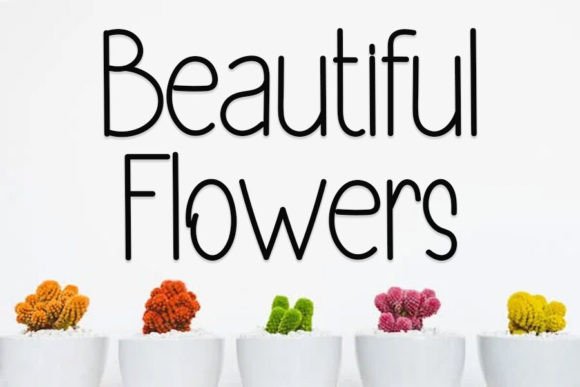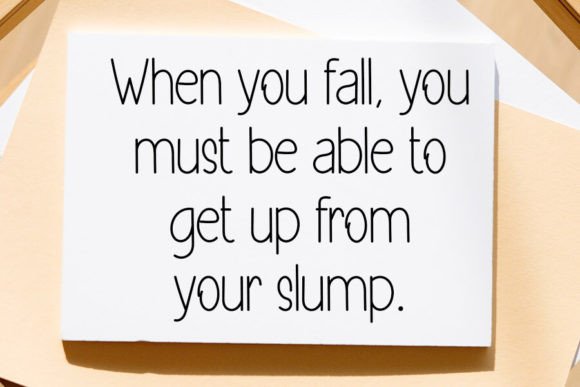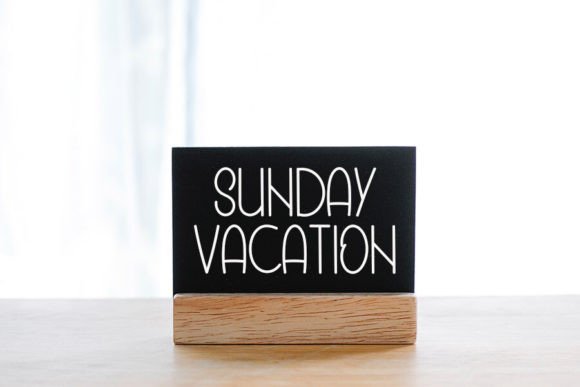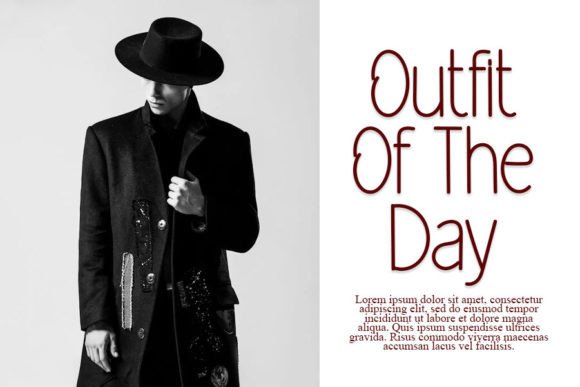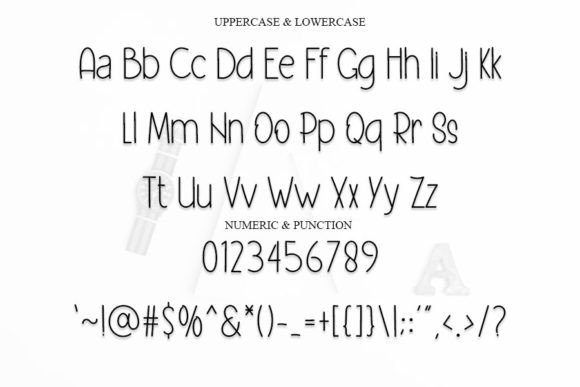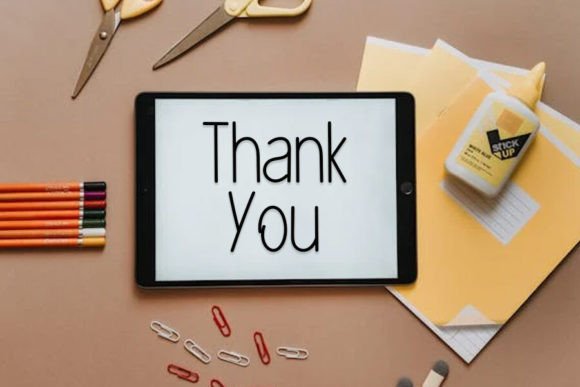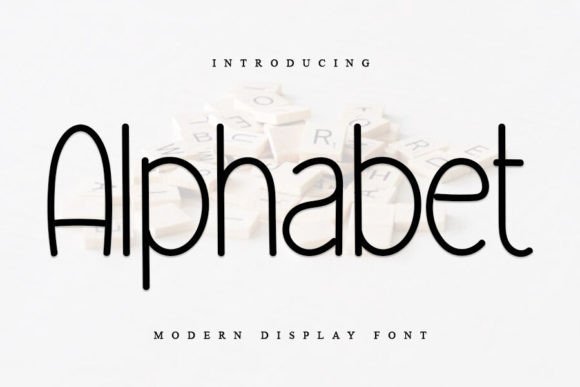
The Magic of Alphabet Font: Bringing Cheer to Your Designs
Do you remember the excitement of decorating your room for the holidays as a child? The twinkling lights, the colorful ornaments, and the sweet scent of fresh pine all combined to create an atmosphere of joy and wonder. For many of us, this is the essence of the holiday season – a time to be festive, to be merry, and to spread cheer to those around us. And what better way to capture this spirit than with the perfect font?
Enter Alphabet Font, a delightful and festive typeface that embodies the magic of the holiday season. With its intricate details and playful flair, this font is perfect for adding a touch of charm to your greeting cards, gift labels, and holiday-themed projects. Its PUA coding also makes it easy to access all the amazing glyphs and ligatures, giving you the freedom to get creative.
For designers, Alphabet Font is a valuable addition to their toolkit, offering a unique and cheerful way to bring their designs to life. Whether you’re working on a holiday project or simply want to add a touch of whimsy to your everyday designs, this font is sure to bring a smile to your face and a sparkle to your eyes.
Key Features of Alphabet Font
- Unique Characteristics: Alphabet Font features a unique blend of modern and vintage elements, with clean lines, geometric shapes, and subtle flourishes that make it stand out from other sans-serif fonts.
- Font Weight and Style: Alphabet Font comes in 7 weights (Light, Thin, Regular, Medium, Bold, Heavy, Black) and 3 styles (Normal, Italic, Bold Italic), providing ample options for designers to create visually appealing and effective typography.
- Scalability: Alphabet Font is designed to be highly scalable, ensuring that it looks great on various devices, from small mobile screens to large-format prints, without compromising on readability or aesthetics.
Designer Review: Alphabet Font
Overall, I think Alphabet Font is a nice, simple font that could work well for certain projects. Here are some things that I think it does well: ✨
- Legibility: Alphabet Font is highly legible, even at small font sizes. It’s great for body text where readability is key.
- Clean design: The font has a clean, modern design that works well for digital and print projects.
- Neutral tone: Alphabet Font has a neutral tone that won’t distract from the content of your project.
- Lack of personality: Alphabet Font is a very safe choice and doesn’t have a lot of personality. If you’re looking for a font that will stand out, this might not be the best choice.
- No variations: There aren’t many variations of Alphabet Font, so if you want to use it for a specific project, you might be limited in your options.
Overall, I think Alphabet Font is a solid choice for simple projects where you need a clean, legible font. However, if you’re looking for something more unique or expressive, you might want to consider other options.
Tips for Getting the Most Out of the Alphabet Font
1. Use the Alphabet Font for creative and playful designs.